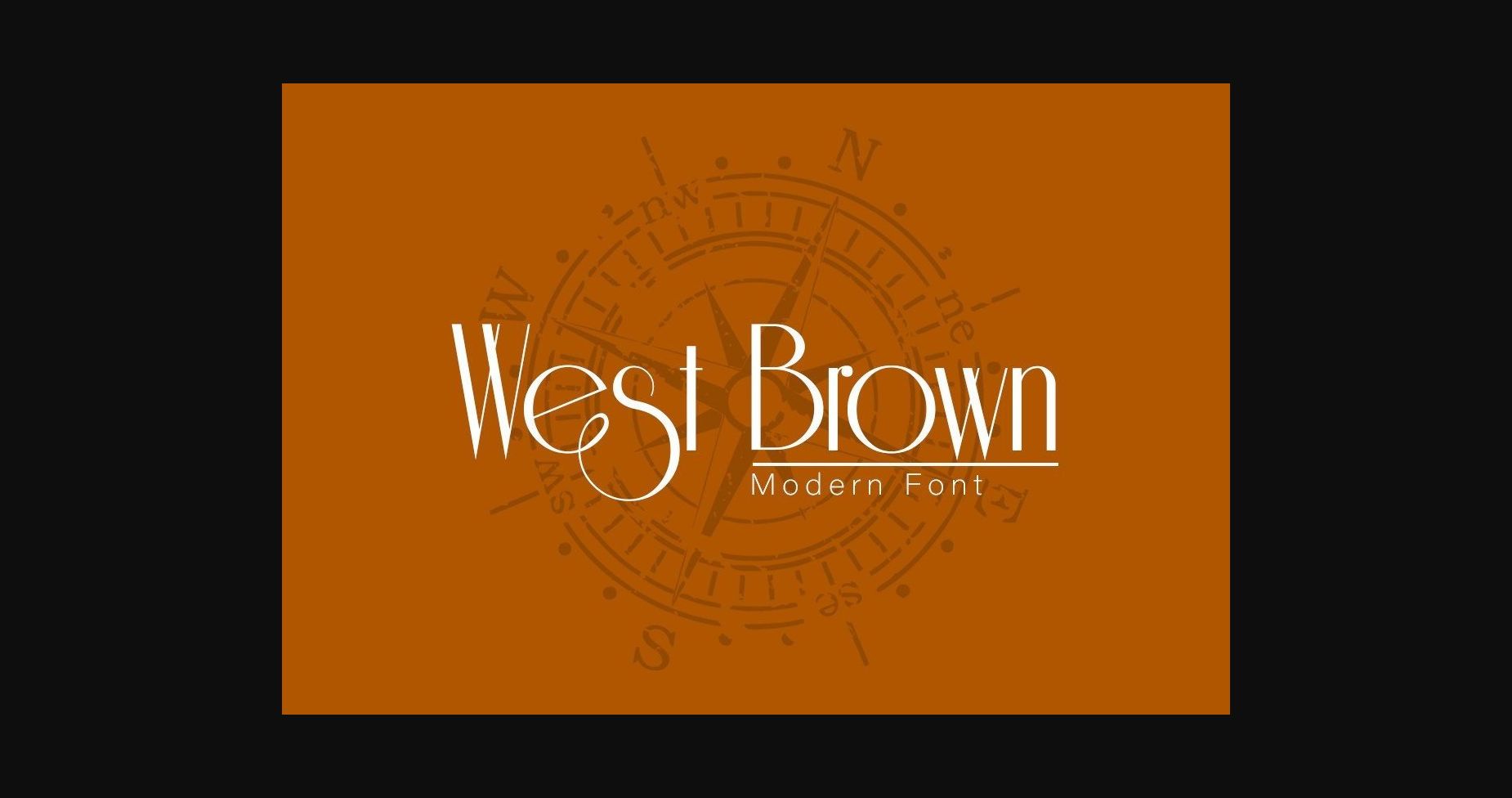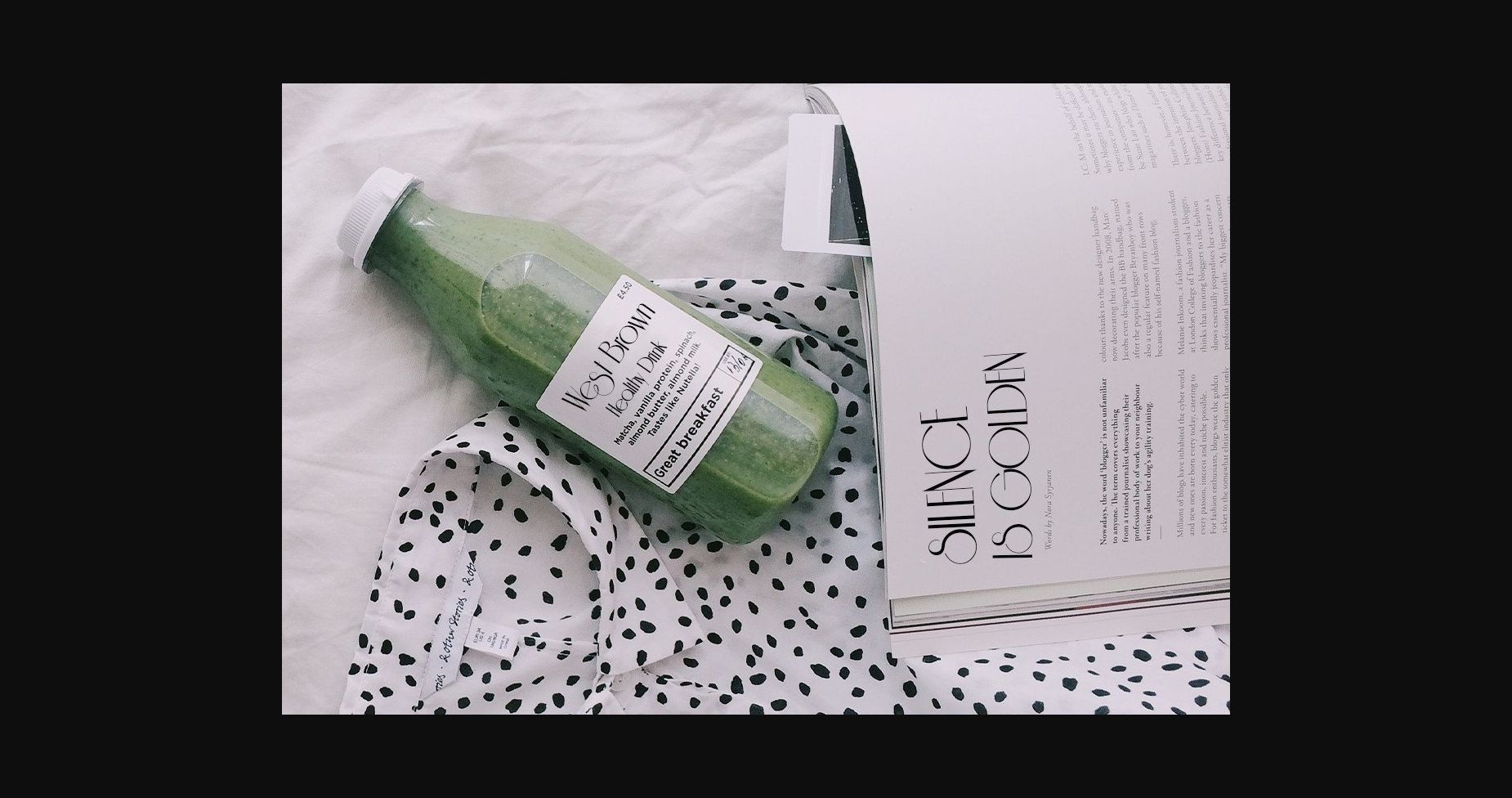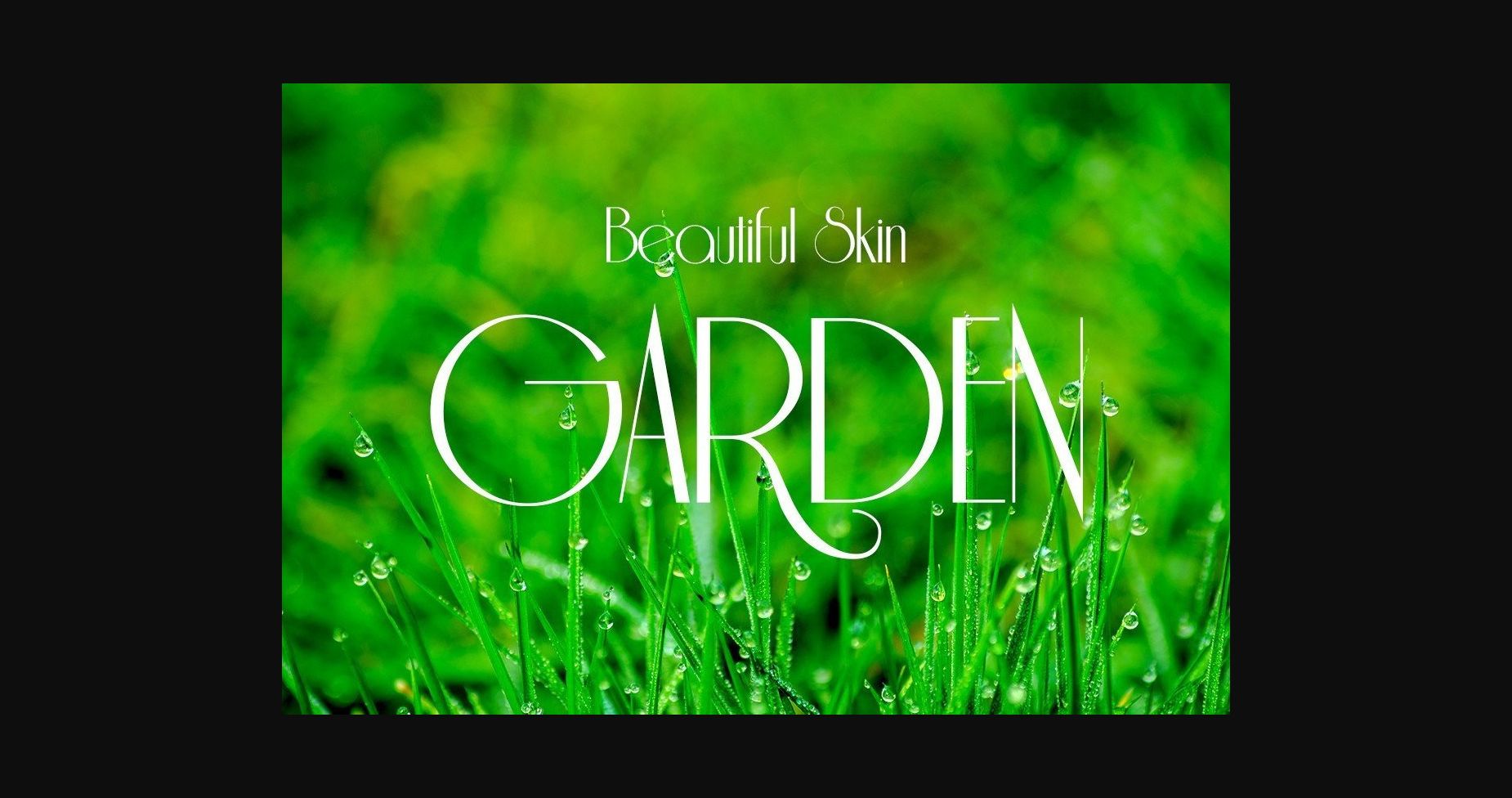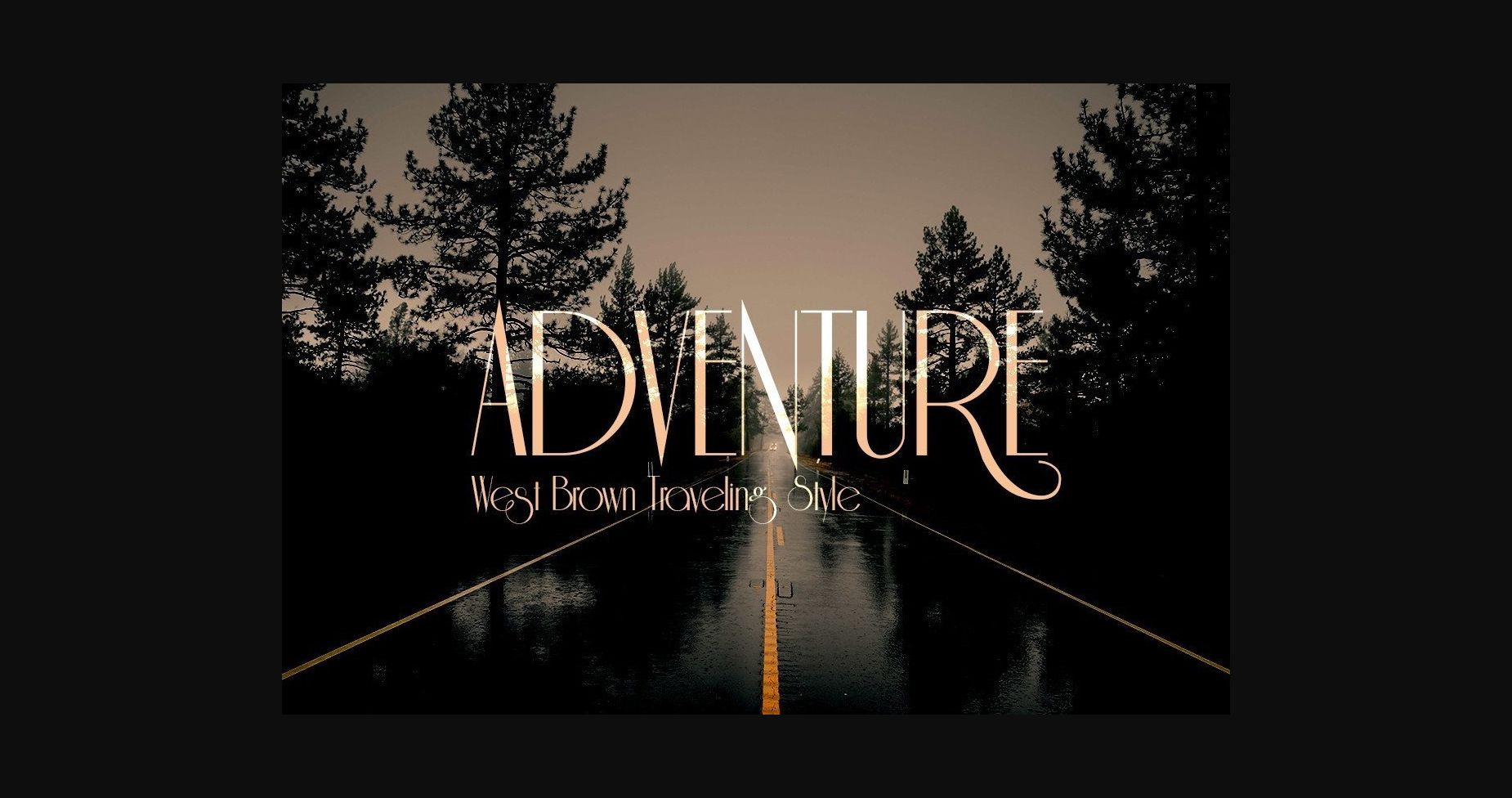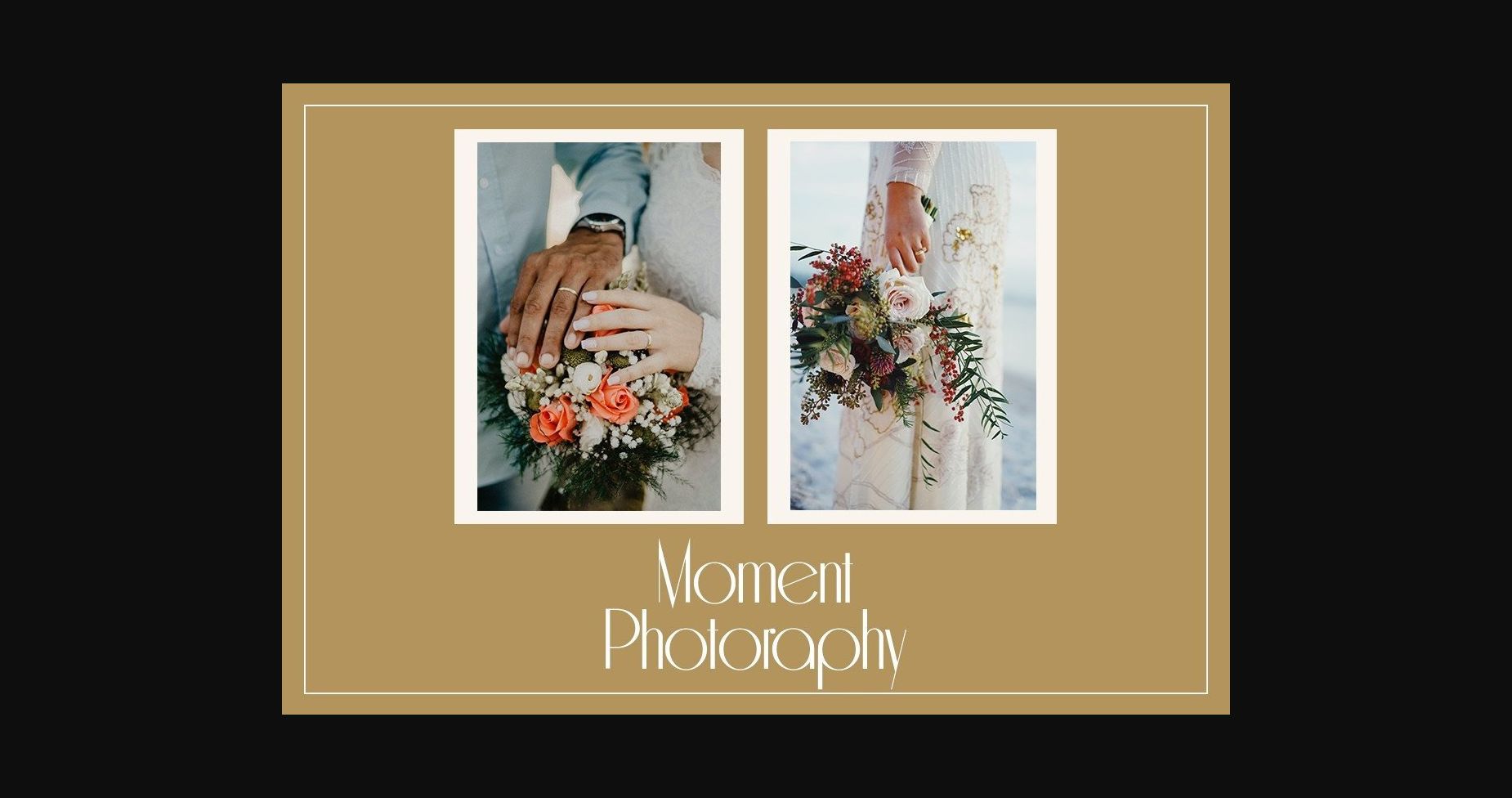
West Brown Font
About West Brown Font
West Brown is an elegant and stylish sans serif font. Its charming slim characters are sure to take your creations to the highest levels!